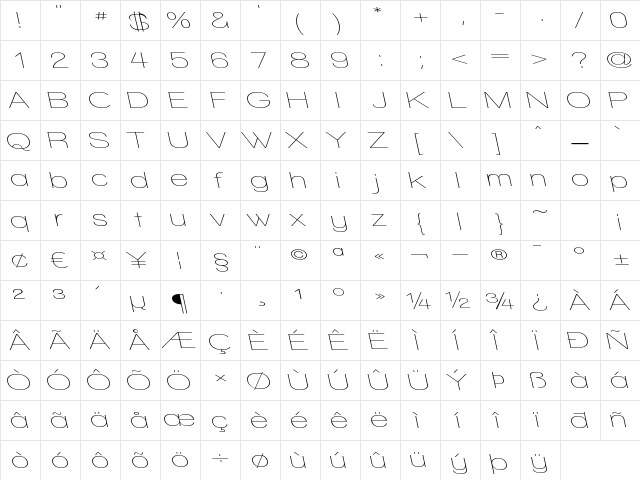
Walkway Expand RevOblique Regular Font Preview
Walkway Expand RevOblique Regular
Design Context for Walkway Expand RevOblique Typeface
Walkway Expand RevOblique is a composed and adaptable typeface that performs quietly and consistently across a wide range of design contexts. Its italic angle brings a sense of urgency and motion to the letterforms.
Pro Tip: Use Walkway Expand RevOblique for emphasis, pull quotes, and subheadings where its slanted energy can add rhythm to the layout.